I think this guide helps you understand monogram font names in a simple way so we learn what these fonts are and how we use them to create clean personal and beautiful designs with easy ideas
I think monogram fonts are very special because they help us show names in a stylish and personal way. When I first saw monogram designs I felt that they look classy and meaningful. Many people use monogram fonts for logos, wedding cards, clothes, and personal branding.
I want to explain everything in very simple words. We will learn what monogram font names are, why they are popular, and how we should use them correctly. I am also sharing my personal experience so this guide feels real and helpful.
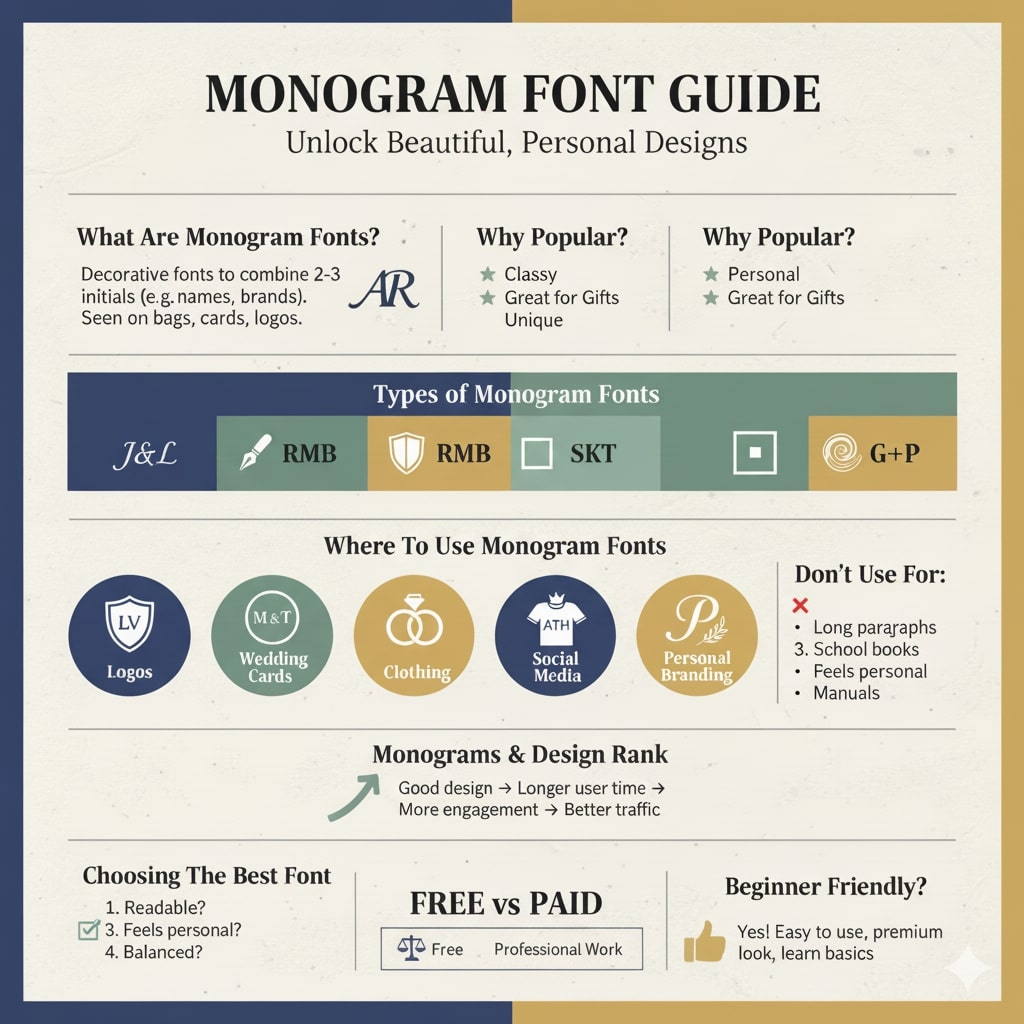
What Are Monogram Font Names
I think monogram font names are fonts that are designed to show letters in a decorative and stylish way. These fonts are mostly used to combine two or three letters like first name, last name, or initials.
We can see monogram fonts on bags, towels, wedding cards, logos, and social media designs. They are for short and meaningful letter designs.
Why Monogram Fonts Are So Popular
I think monogram fonts are popular because they feel personal and elegant. People love to see their name or initials in a stylish form.
Monogram fonts are popular because
- They look classy
- They feel personal
- They work well for gifts
- They make designs unique
If we want a design that feels special then monogram fonts are a good choice.
Types Of Monogram Font Names
Script Monogram Fonts
These fonts look like handwriting. They feel soft, romantic, and elegant.
Classic Monogram Fonts
These fonts look formal and traditional. They are used in luxury designs.
Modern Monogram Fonts
These fonts look clean, simple, and stylish. They work well for modern branding.
Decorative Monogram Fonts
These fonts are bold and artistic. They are used for creative designs.
Popular Monogram Font Names
I think many people search for good monogram font names. Here are some well-known styles.
- Script style fonts
- Elegant letter fonts
- Luxury initial fonts
- Wedding monogram fonts
- Modern clean monogram fonts
We should always test fonts before using them in final designs.
Where We Use Monogram Fonts
Logos
Brands use monogram fonts to show initials in a classy way.
Wedding Cards
Names and initials look beautiful in monogram style.
Clothing Designs
Shirts, caps, and bags look premium with monograms.
Social Media
Profile images look stylish with initials.
Personal Branding
Monograms help create a strong identity.
Where We Should Not Use Monogram Fonts
- Long paragraphs
- School books
- Articles
- Instruction manuals
These fonts are best for short text only.
How I Personally Use Monogram Fonts
I think personal experience makes learning better. When I first used a monogram font I created a logo using my initials. The result was very clean and professional.
How To Choose The Best Monogram Font Name
I think choosing the right font is very important.
We should ask
- Is the font easy to read?
- Does it match the purpose?
- Does it feel personal?
- Does it look balanced?
If the answer is yes then the font is right.
- Better sharing brings traffic
That is why monogram fonts help branding and growth.
Free Vs Paid Monogram Fonts
I think both types are useful.
- Free fonts are good for learning
- Paid fonts are better for professional work
We should always check the font license before commercial use.
How To Combine Monogram Fonts With Other Fonts
I think pairing fonts improves design.
- Use monogram font for initials
- Use simple font for text
This makes design balanced and readable.
Are Monogram Fonts Good For Beginners
I think yes they are good for beginners.
- They are easy to use
- They make designs look premium
- They help understand typography basics
If you are learning design then monogram fonts are a good start.
What are monogram font names?
They are fonts used to style initials in a decorative way.
Are monogram fonts free?
Some are free and some are paid.
Can beginners use monogram fonts?
Yes they are easy and beginner friendly.
Are monogram fonts good for logos?
Yes they are perfect for logo initials.
Conclusion
I think monogram font names are a powerful design tool when used correctly. We learned what they are, where to use them, and how to avoid mistakes. If we use monogram fonts smartly then our designs become personal, elegant, and memorable.
This guide gives you clear understanding and real experience so you can confidently use monogram font names and improve your design work in a simple and safe way.